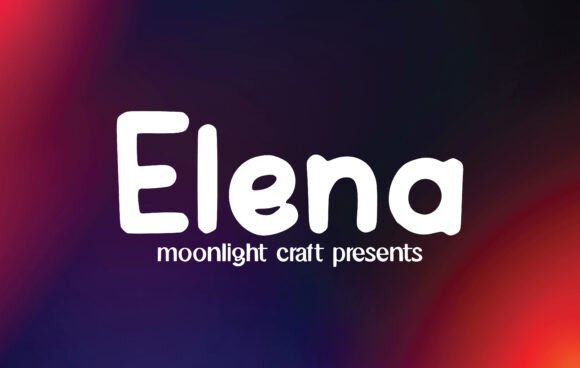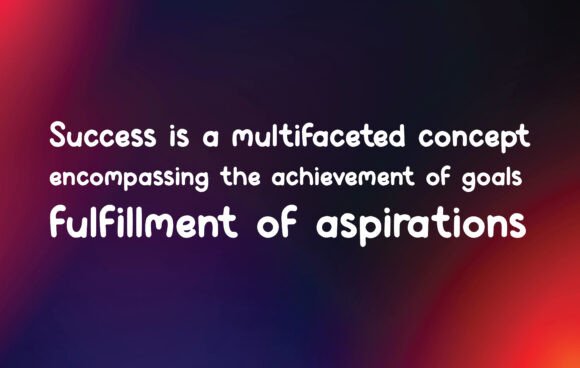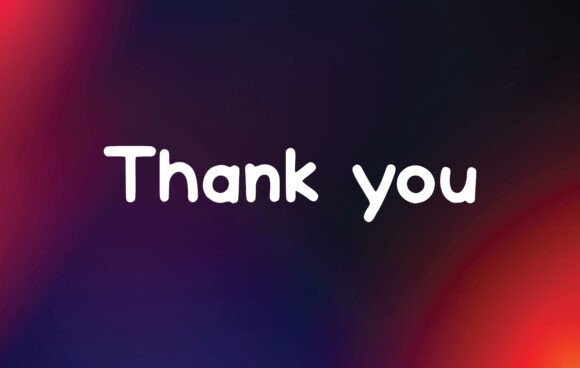
The Perfect Blend of Beauty and Creativity: Introducing Elena Font
Have you ever been in the middle of a brainstorming session, pouring your heart and soul into a new project, and suddenly a spark of inspiration strikes? That’s exactly what happened to me when I discovered the Elena Font. Its elegant, handwritten style has the power to elevate your creative ideas and make them truly stand out.
As a go-to font for designers, Elena Font is the perfect choice for creating eye-catching logos, branding, and quotes. Its unique blend of sophistication and playfulness makes it versatile enough to suit any design project. Whether you’re a seasoned pro or just starting out, Elena Font is an invaluable tool that will help you bring your creative vision to life.
Elena Font Key Features
- Font Family: Elena is a sans-serif font family.
- Language Support: Supports multiple languages, including Latin, Cyrillic, and Greek scripts.
- Unique Characteristics: Features a modern, clean design with subtle rounded edges and a friendly feel.
Elena Font Review
- Unique character set: Elena Font boasts an extensive character set that includes a wide range of languages and accents, making it a great choice for international projects.
- High-quality rendering: The font renders beautifully, with clear and crisp lines that are perfect for both digital and print applications.
- Modern aesthetic: Elena Font’s design is modern and sleek, making it a great choice for contemporary projects that need a touch of sophistication.
- Weight limitations: Elena Font only comes in a few weights, which might limit its versatility in certain projects.
- Lack of italics: The font doesn’t come with italics, which can be a drawback for projects that require a lot of emphasis or stylistic variation.
Elena Font is a solid choice for any project that requires a modern and sophisticated aesthetic. While it has some limitations, its unique character set and high-quality rendering make it a great addition to any font collection.
Tips for Getting the Most Out of Elena Font
Elena Font is a versatile font that can be used for a variety of designs, from headings to body text. Here are some tips for getting the most out of it:
- Use Elena Font for headings to add a touch of elegance and sophistication.
- Pair Elena Font with other fonts for a unique and creative look.
Elena Font is commonly used for:
- Business cards and resumes.
Compared to Elena Font, Merriweather Font has a more traditional and timeless feel, whereas Elena Font has a modern and elegant appearance. Merriweather Font is also more suitable for large blocks of text, whereas Elena Font is better suited for headings and titles.
Lato Font is similar to Elena Font in its modern and elegant appearance, but it is more versatile and can be used in a wider range of contexts. Elena Font is more suited for luxury or high-end branding, whereas Lato Font is more suitable for everyday use.